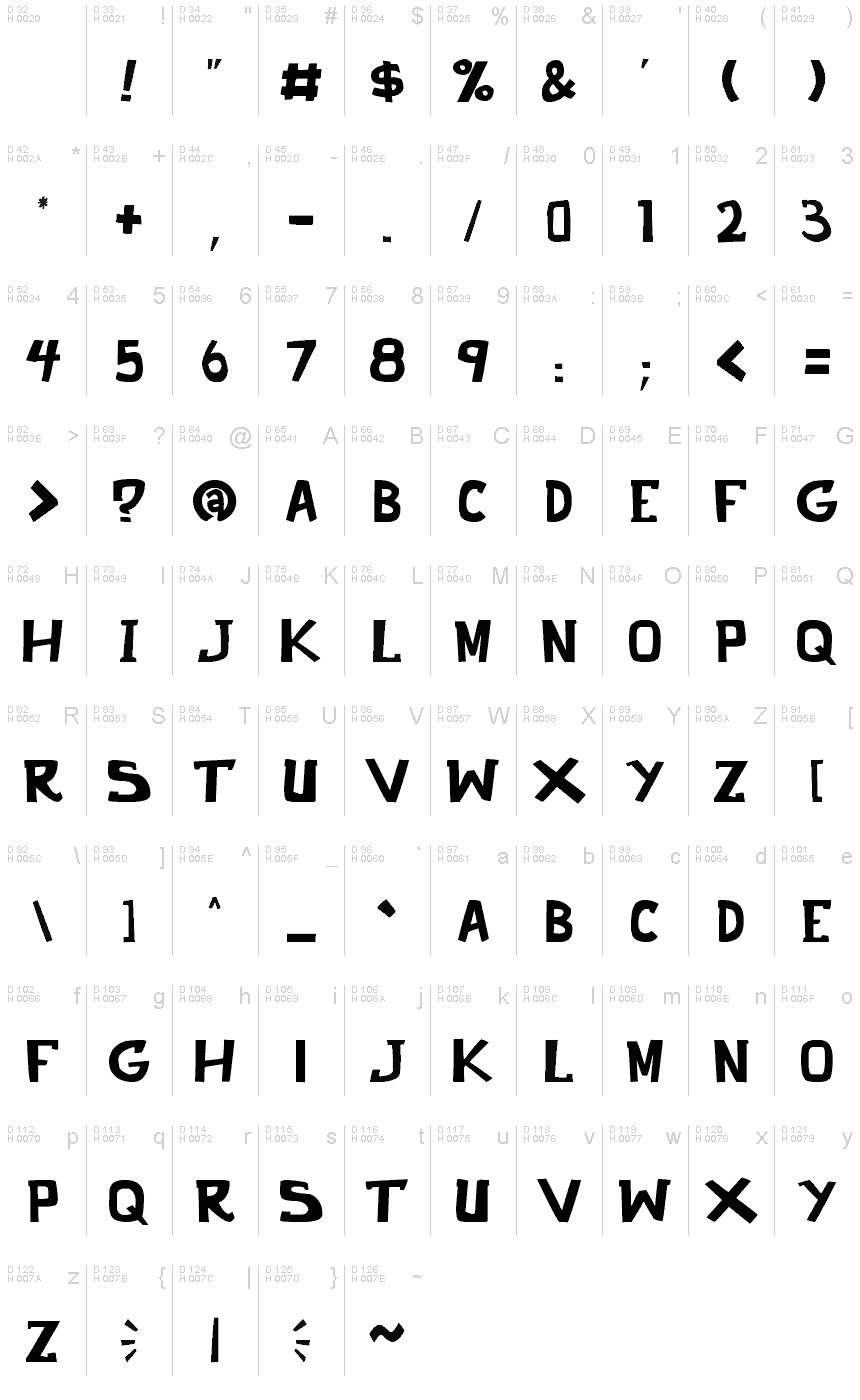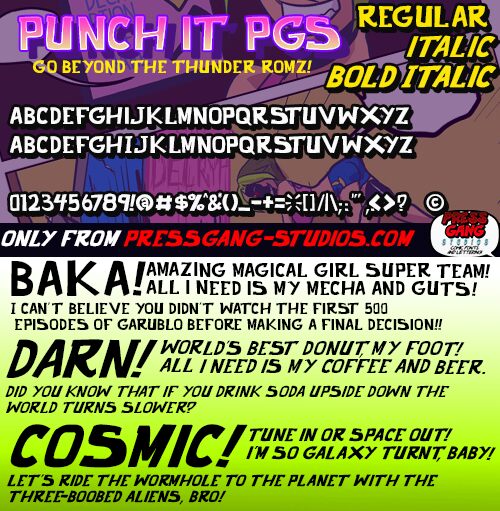
punch it PGS
Punch It PGS is a bold, eye-catching display font that exudes a playful, comic-inspired aesthetic. Designed by PressGang Studios, this font boasts a dynamic and expressive character, with sharp edges and a strong, assertive presence. Its bold strokes and angular forms lend it an energetic, impactful appearance, making it an excellent choice for headlines, logotypes, and promotional materials.
The font's versatility allows it to transition seamlessly between whimsical, edgy, and modern design applications, making it a versatile addition to any designer's toolkit.